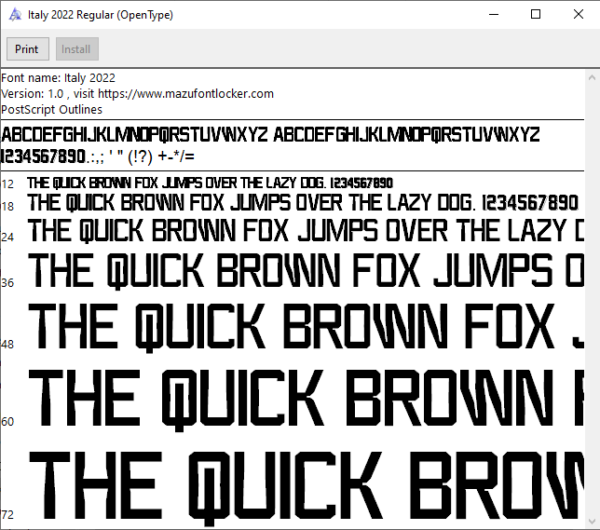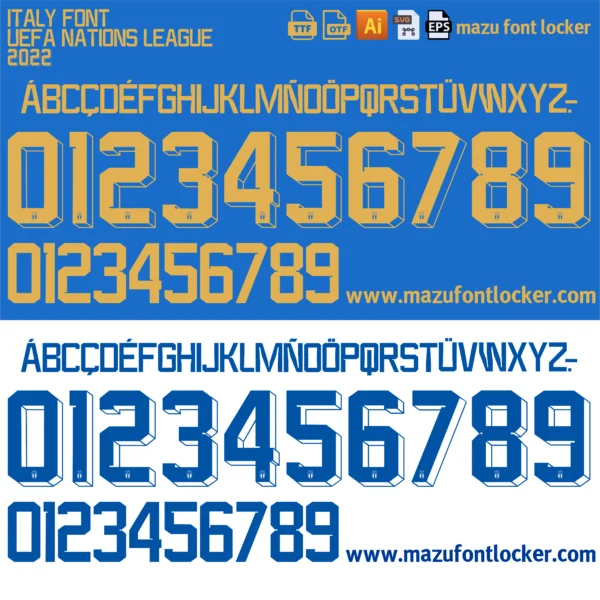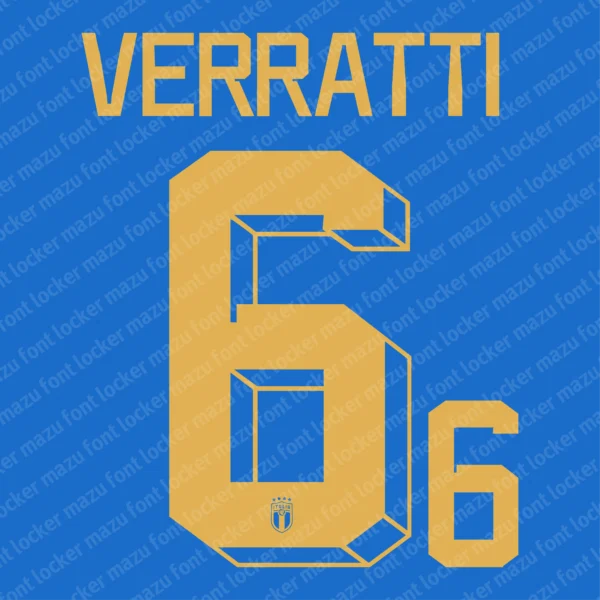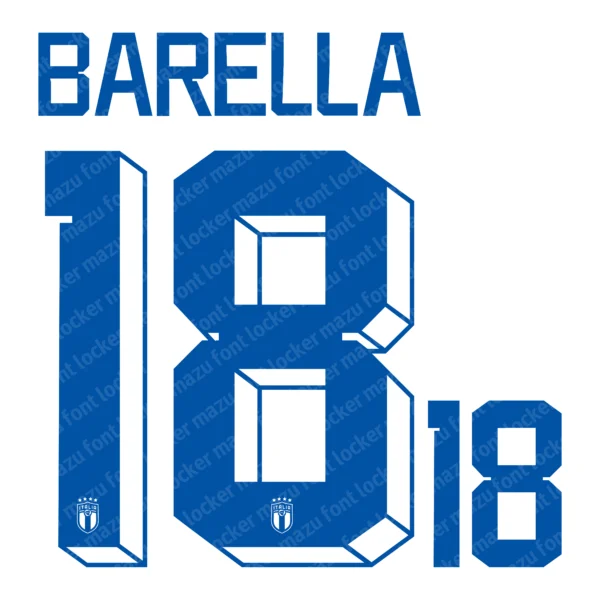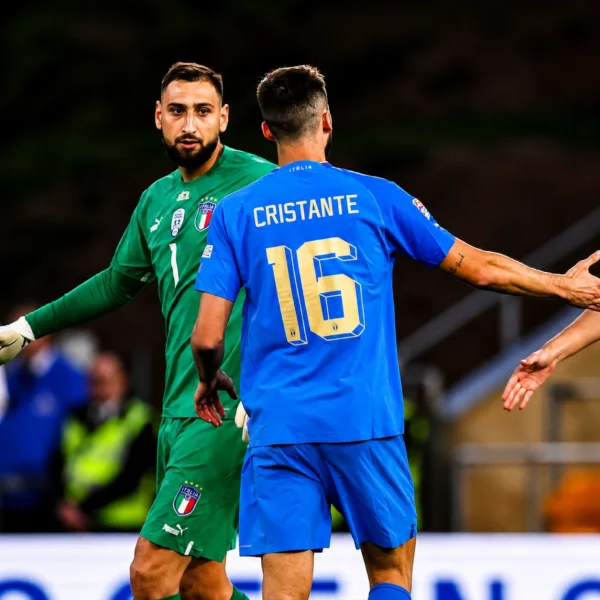
Italy 2022 Font Vector – Stunning Azzurri Victory Masterpiece
This premium font captures the commanding, iconic, majestic, and battle-ready lettering that embodies the unstoppable Italian spirit — delivering raw passion of the Mediterranean, explosive winning energy, relentless never-say-die mentality, tactical supremacy, and legendary Azzurri phoenix grit.
Italy 2022 Font Vector – Authentic Italy National Team Typeface
The Italy 2022 Font Vector is a premium typeface that accurately recreates the official match lettering worn by the Italy National Team during the 2022 season. This high-quality vector font kit captures the bold, elegant, and iconic typography that represents the rich heritage, passion, and Azzurri pride of Italian football.
Why Choose Italy 2022 Font Vector
This font stands out because of its sharp vector precision and strong national identity. Every letter and number is crafted to match the exact style used on the players’ shirts during the 2022 season. Whether you are making realistic kit templates or exciting Italy content, the Italy 2022 Font Vector gives your designs that authentic Azzurri look.
The letterforms in the Italy 2022 Font Vector are tall, bold, and highly readable. The strokes have a strong, clean weight with excellent edge definition that looks powerful on the back of jerseys while maintaining classic Italian heritage and modern sporting elegance.
• Full uppercase A–Z and numbers 0–9 in authentic Italy 2022 style
Italy 2022 Campaign
The 2022 season was a memorable campaign for the Italy National Team as they continued to showcase their trademark tactical discipline, technical brilliance, and fighting spirit on the international stage. The Azzurri delivered strong performances that reinforced Italy’s status as one of the most respected football nations in the world.
Star players and rising talents combined to produce unforgettable moments that united fans across Italy and the global Azzurri community.
The Italy 2022 Font Vector is an independently designed typeface package. It is carefully crafted to replicate the official shirt lettering style of the 2022 season. This font kit is perfect for creative projects, fan edits, nostalgic jersey designs, and custom football graphics.